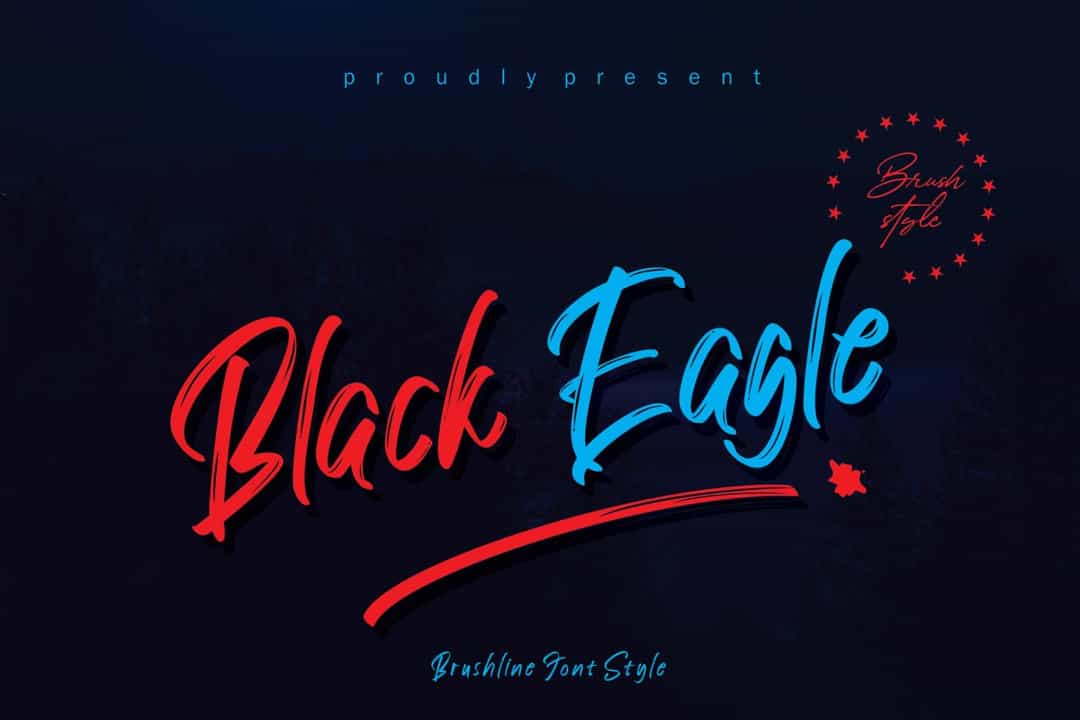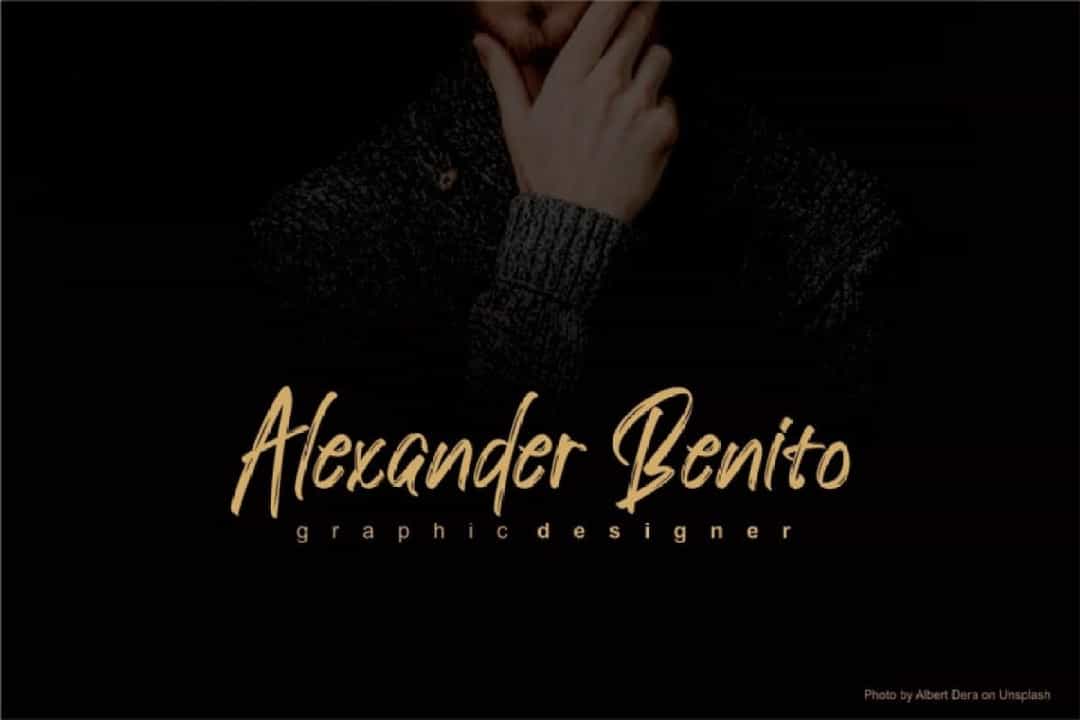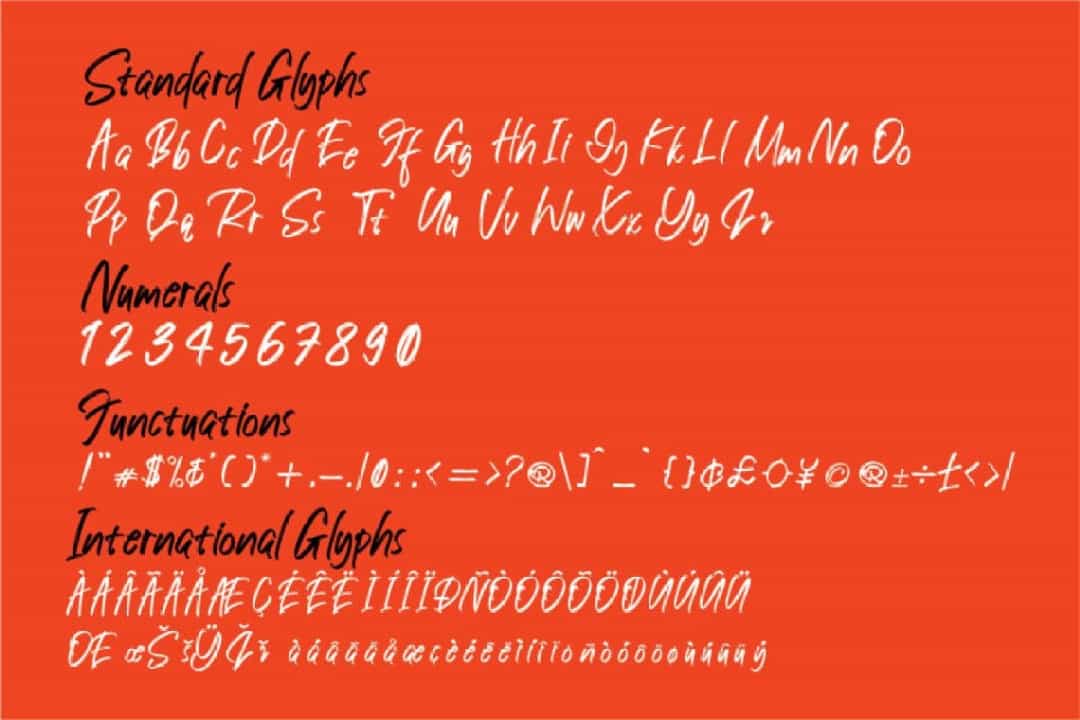
Black Eagle is a script font created using dry brush techniques. Packed with automatic Contextual Alternates that keep text lively, as well as Swash alternative lowercase letters to add flair, this font brings its own distinct taste into text.